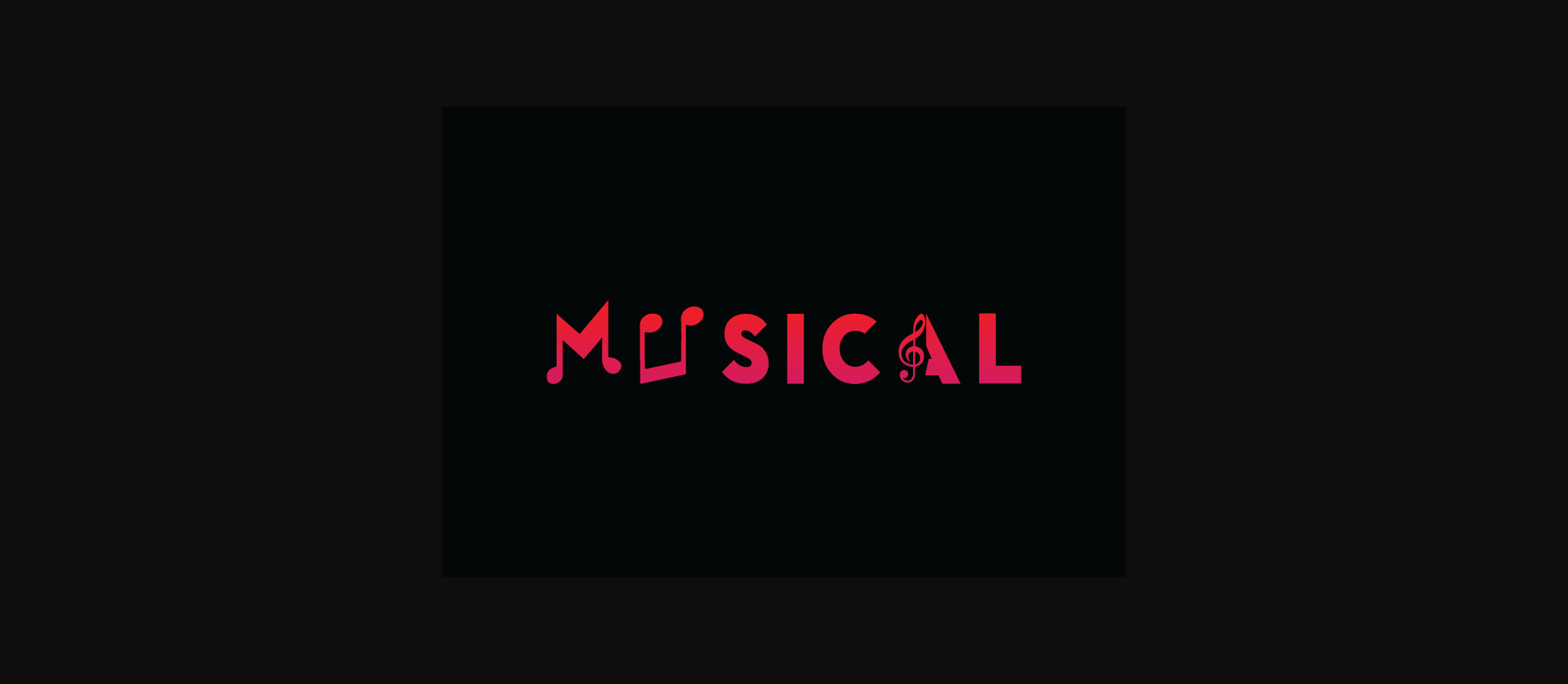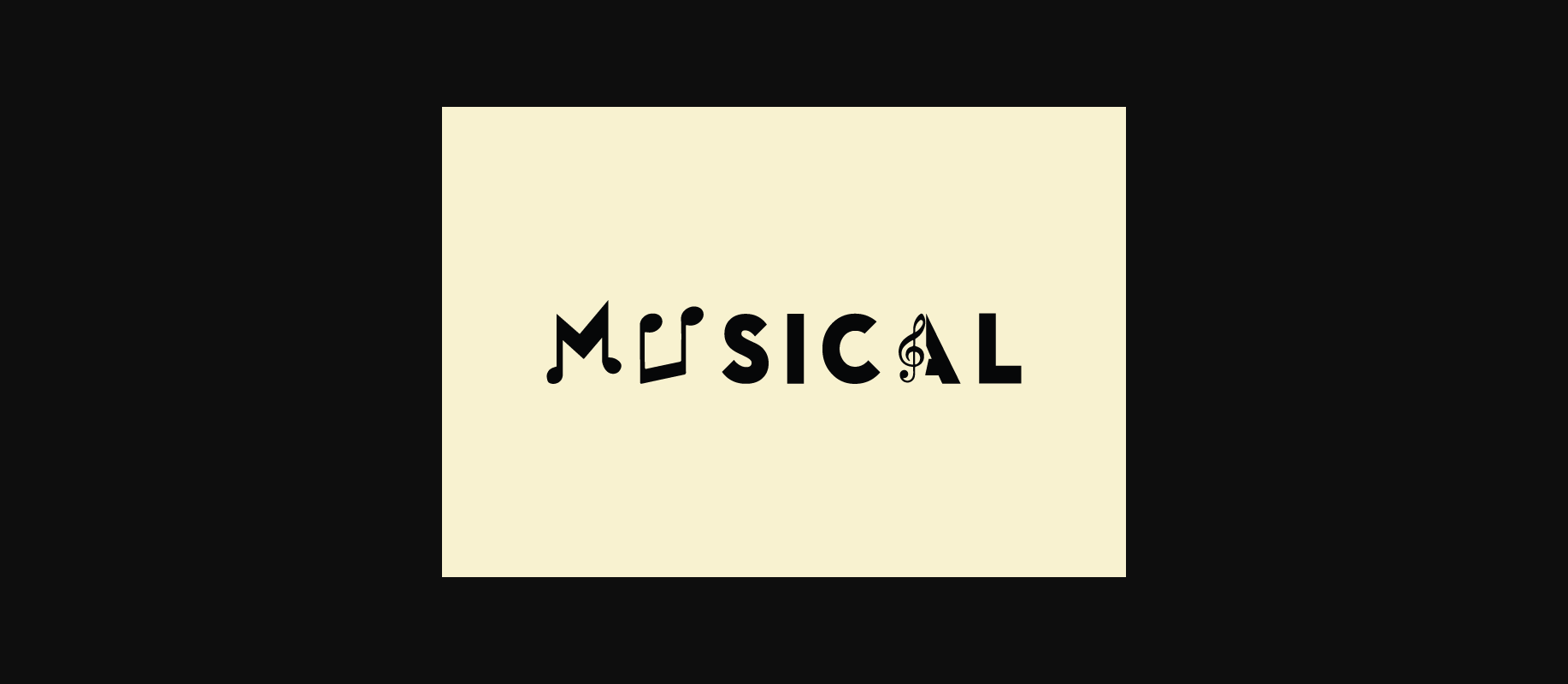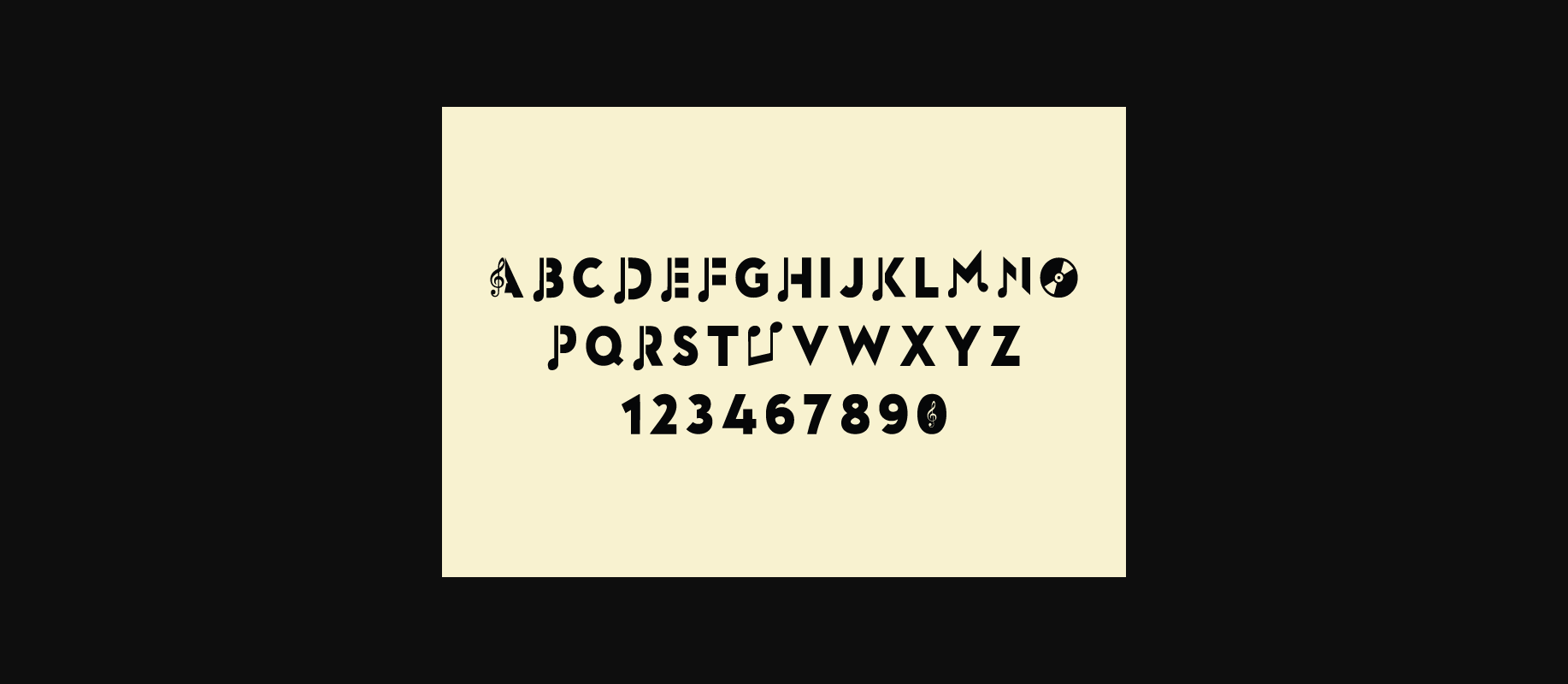
About Musical Font
Musical is a simple sans-serif font designed for a clean look. its notes and symbols pirouetting in perfect harmony. Each character possesses a lyrical elegance, flowing seamlessly from one to the next as if conducting a symphony of visual composition. this font is perfect for creating a minimalist aesthetic in Tattoos, logos, web design, and branding.